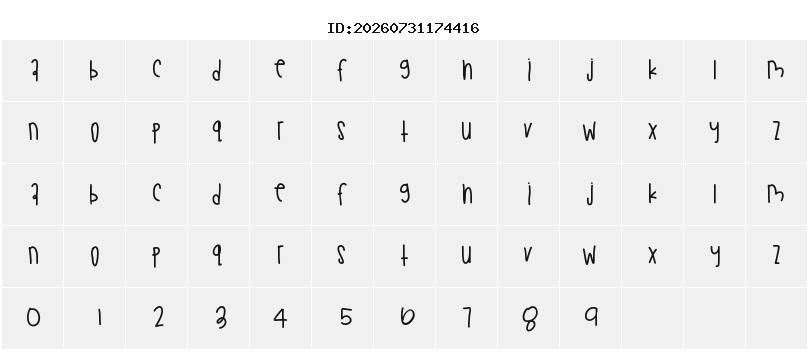
• Font Name: LemonCreamPie
LemonCreamPie.ttf is a modern, elegant sans-serif font designed for ultimate readability and visual harmony. Perfect for branding, headlines, web design, and print materials.